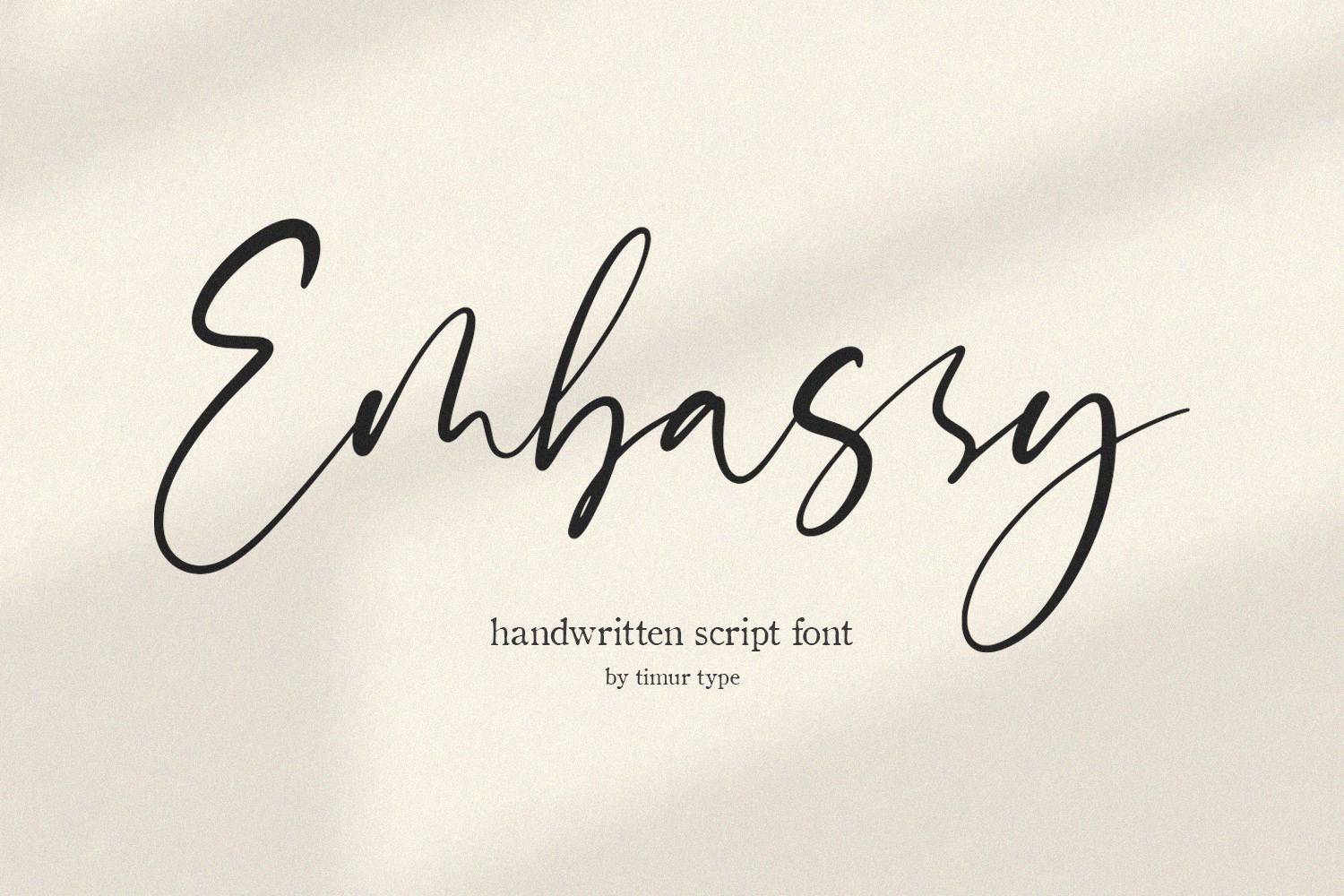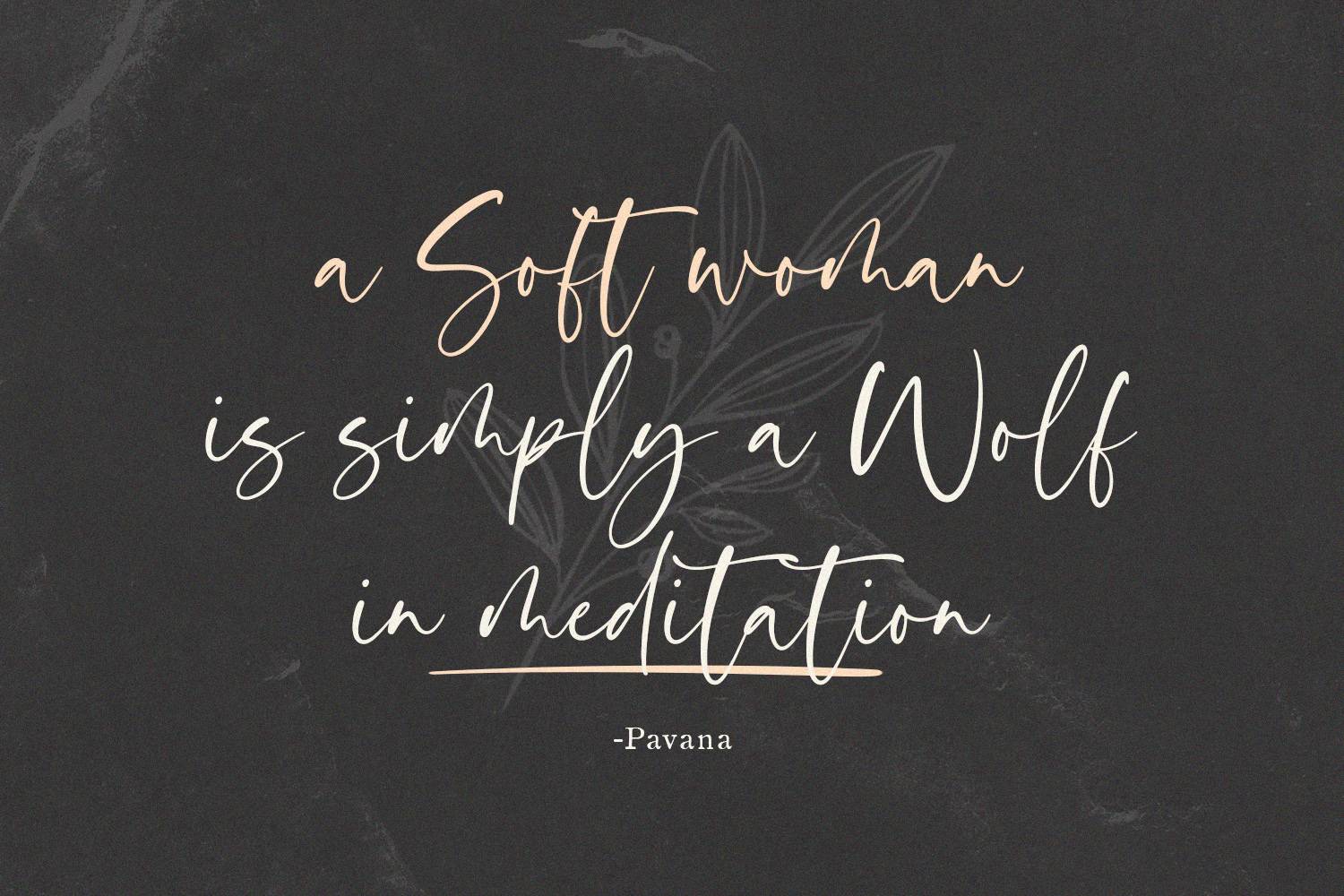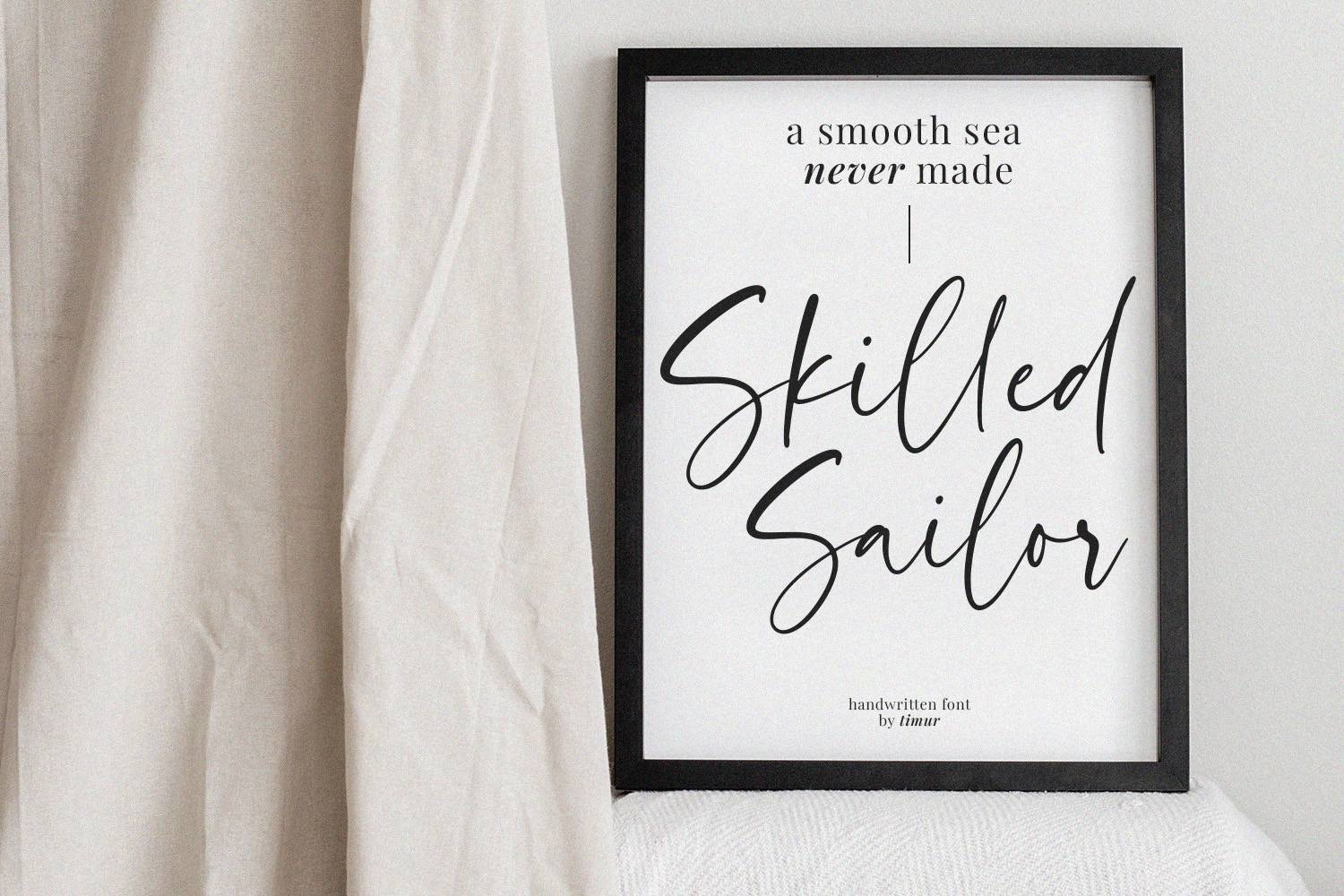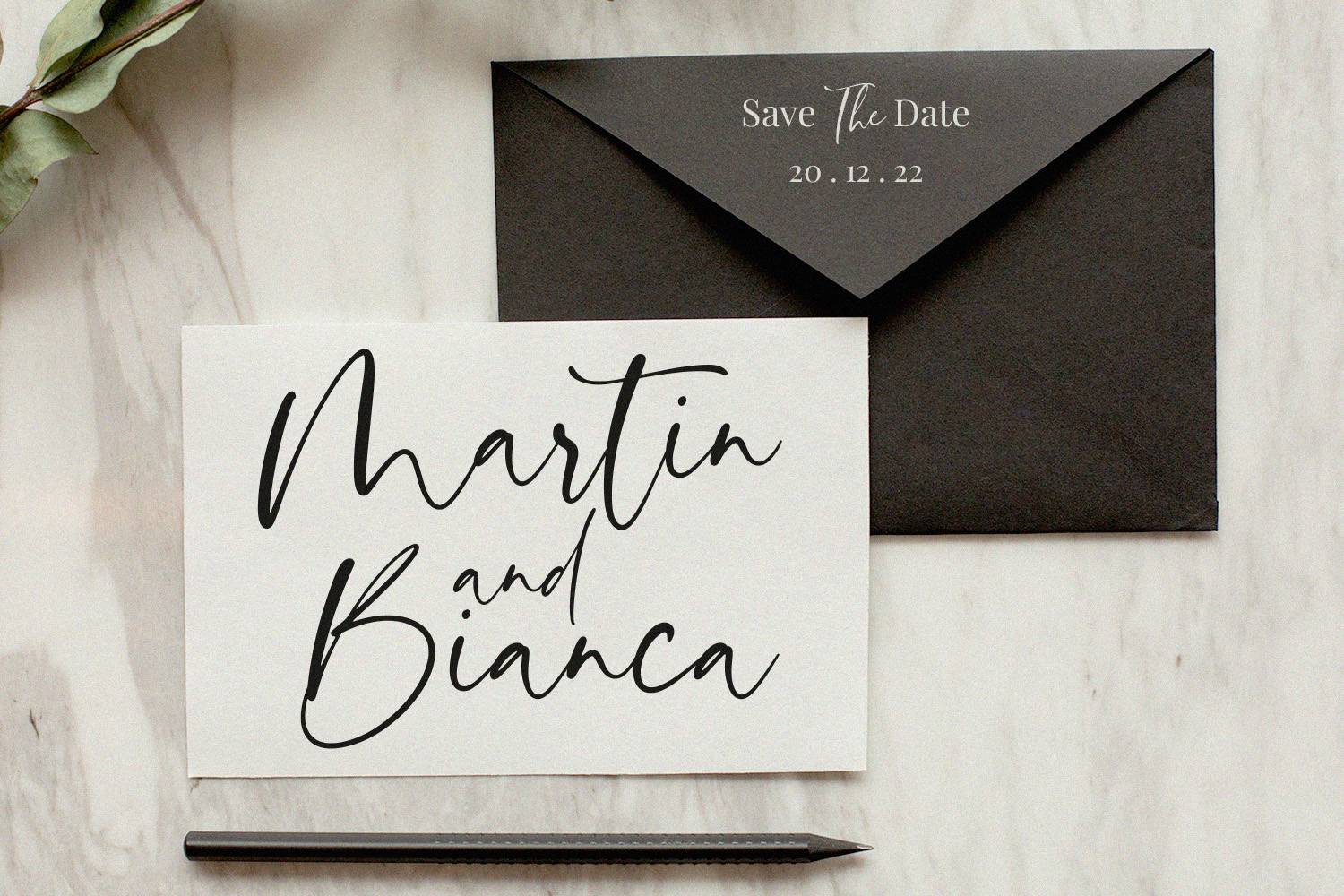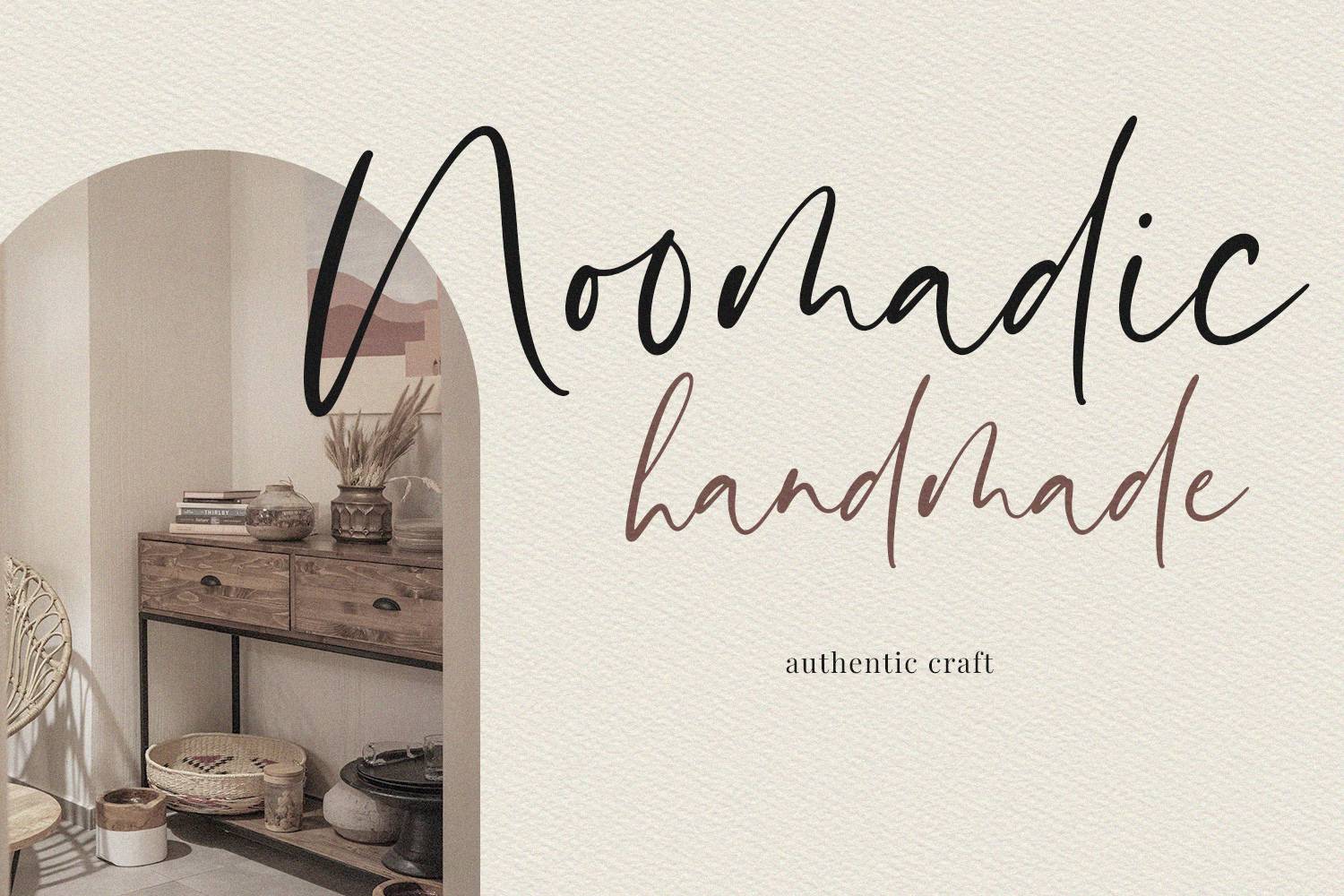
Embassy is a delicate, handwritten script font with a light, airy feel and elegant, flowing letterforms that convey a personal and artistic touch. Its slender strokes and cursive style make it perfect for invitations, branding, and designs that require a graceful, feminine, or creative vibe. This font works beautifully in logos, stationery, and headlines where a sophisticated yet approachable look is desired.
Embassy Font
About Embassy Font